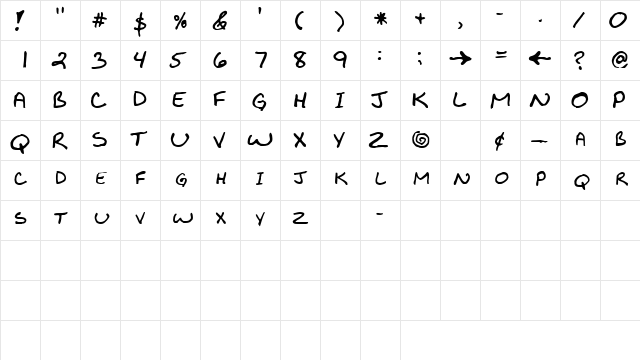
UpdateSCapsSSK Regular
Design Context for UpdateSCapsSSK Typeface
UpdateSCapsSSK is a composed and adaptable typeface that performs quietly and consistently across a wide range of design contexts.